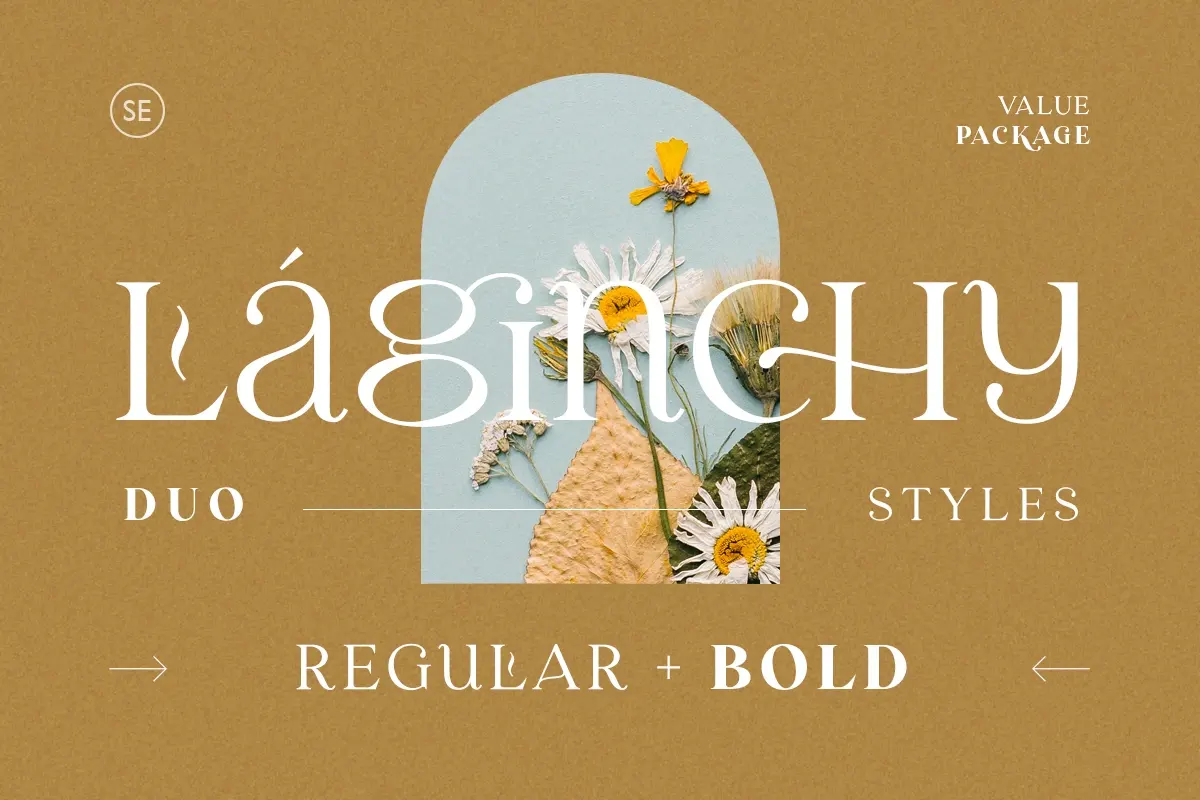
Laginchy Serif Font Free Download is a stylish and elegant typeface that brings a touch of luxury to any design. With its refined curves and classic serif details, it’s perfect for branding, fashion editorials, wedding invitations, and upscale packaging. The font’s timeless beauty makes it a top choice for designers seeking sophistication and high-end appeal in their work. Whether you're crafting logos or designing social media graphics, Laginchy delivers a premium look.
Ideal for both print and digital use, the Laginchy Serif Font supports multilingual characters and maintains clarity at various sizes. Enhance your creative projects with a font that speaks elegance and professionalism.